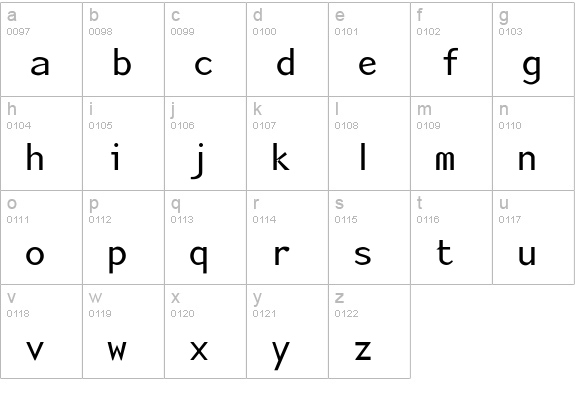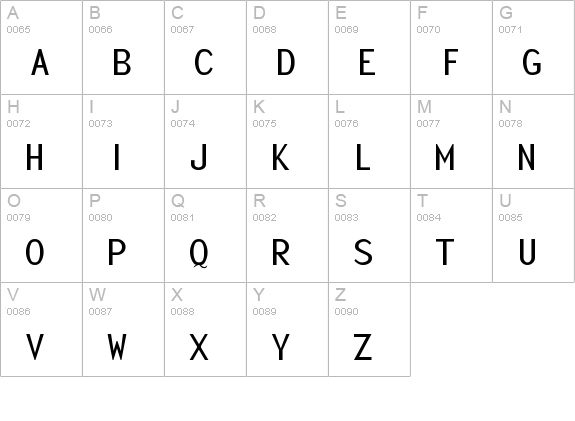
Monotony Font Details
Monotony font is a versatile and stylish typeface that brings a sense of elegance and simplicity to any design project. With its clean lines and modern appeal, this font is perfect for creating sleek and professional-looking graphics, logos, and more. The timeless design of Monotony font makes it suitable for a wide range of applications, from branding and advertising to web design and packaging. What makes Monotony font even more appealing is that it is available for free download at FontsMarket.com. This means that you can easily access this high-quality font without having to worry about any costs. Whether you are a seasoned designer looking for a new addition to your font collection or a beginner exploring different typography options, Monotony font is a fantastic choice that won't disappoint. Download it today and elevate your projects with this exceptional typeface.